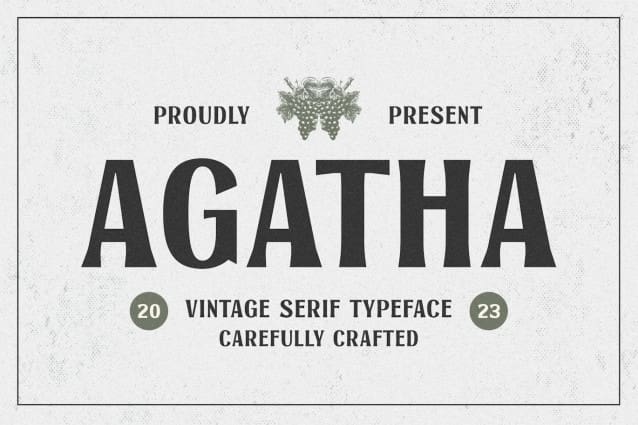
Agatha Display Font
Agatha Display Font, a vintage serif typeface that embodies the timeless elegance of a bygone era. With its ornate and classic letterforms, “Agatha” adds a touch of vintage charm to any project. Each character is meticulously crafted to infuse your designs with a sense of nostalgia, making it ideal for retro branding, antique-inspired posters, classic book covers, and more.
Embrace the timeless allure of “Agatha” as it effortlessly enhances your designs. Whether you’re creating old-world logos, vintage editorial layouts, historic invitations, or nostalgic social media graphics, this font will captivate your audience with its vintage and elegant style.
Step into a world of classic typography with “Agatha” and let your designs speak with the grace and beauty of the past.